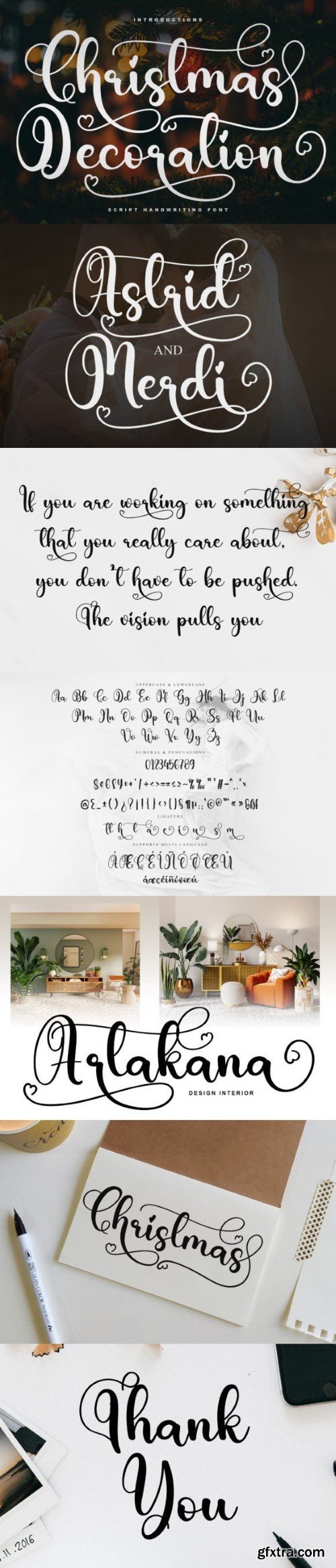
圣诞节装饰字体
Christmas Decoration is a stylish and dainty script font. It is suitable for any projects such as : logos, branding projects, label, photography, watermark, special events, and all your other lovely projects that need a beautiful script taste. This font is PUA encoded which means you can access all of the glyphs and swashes with ease.